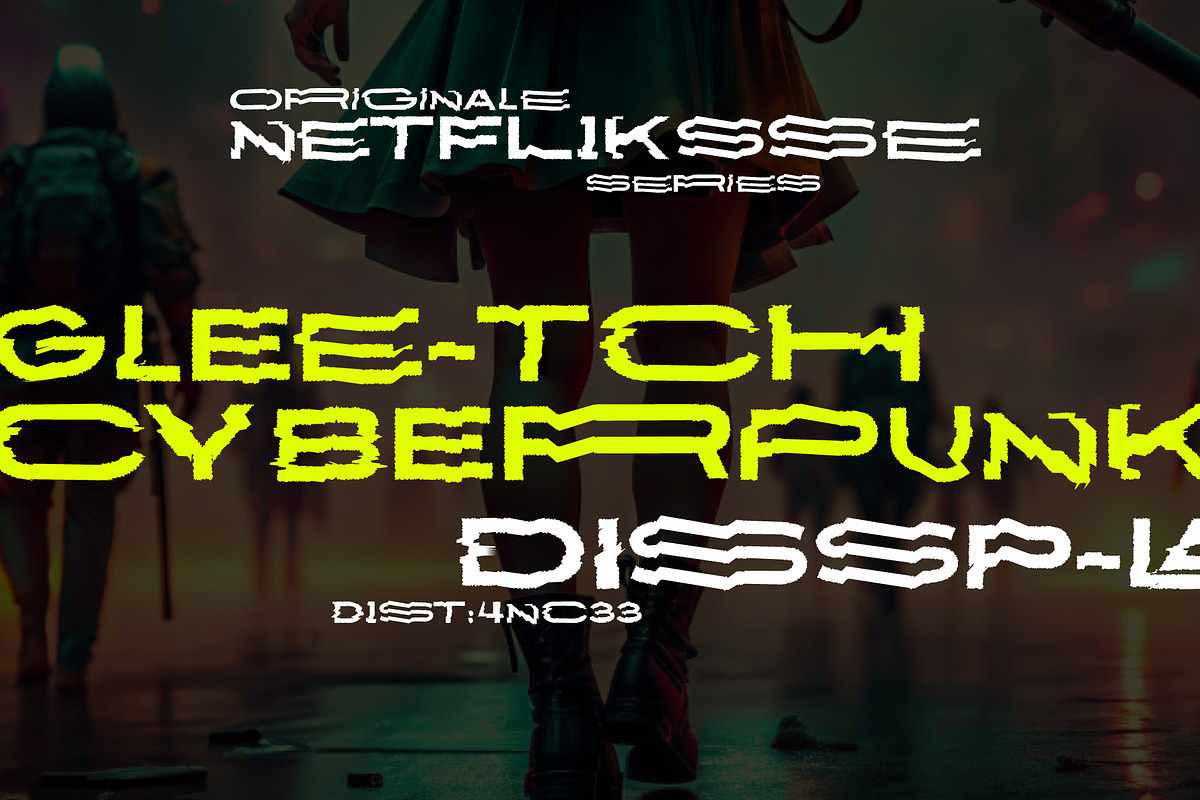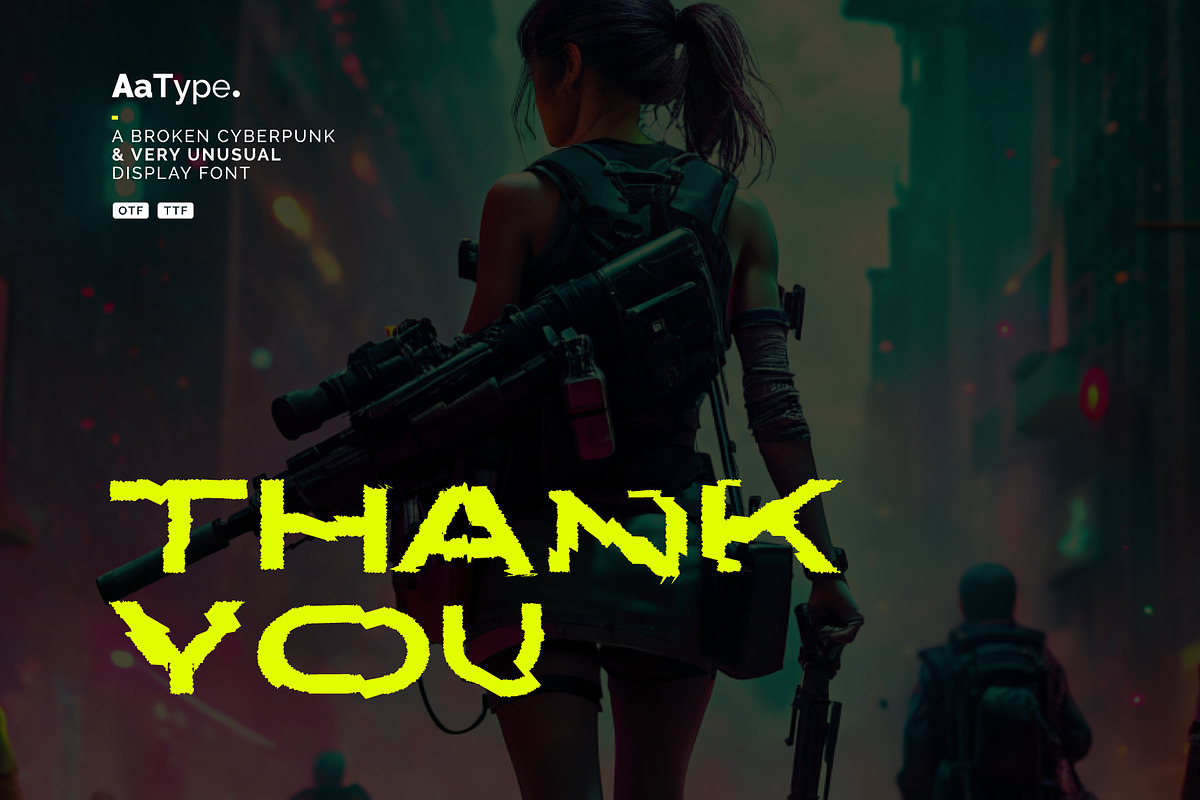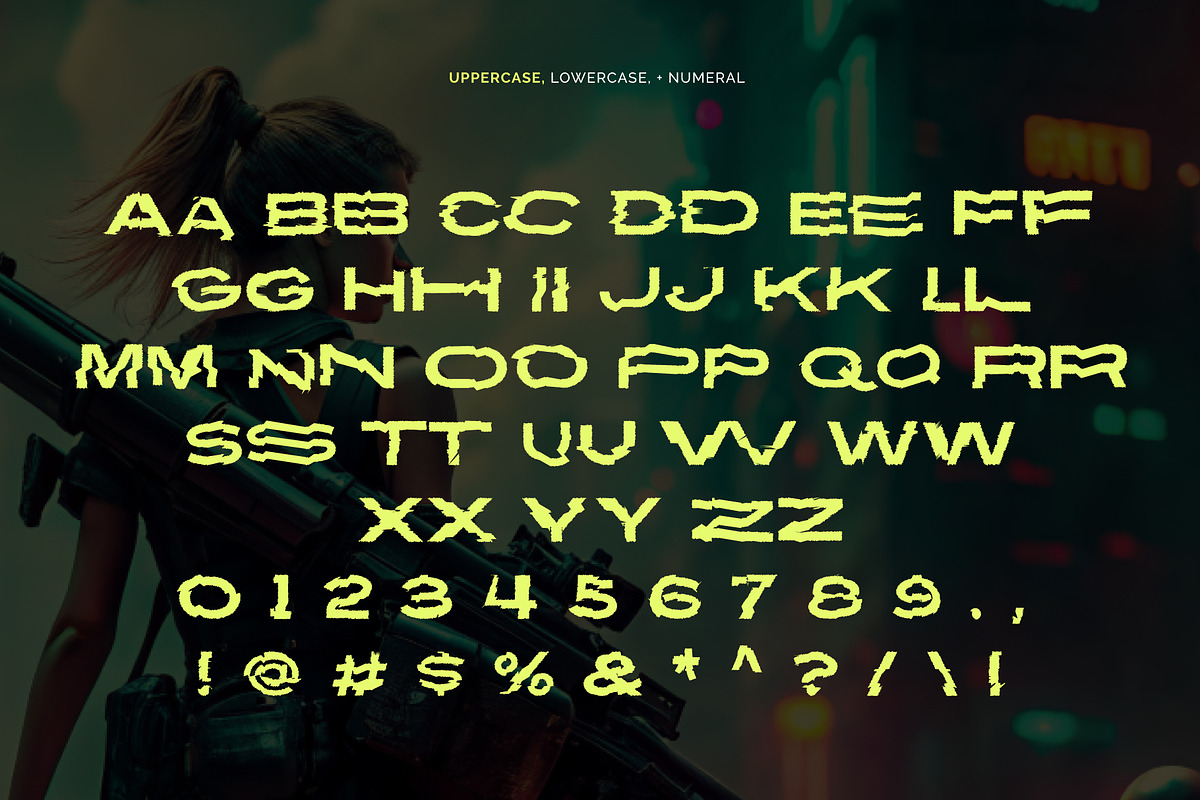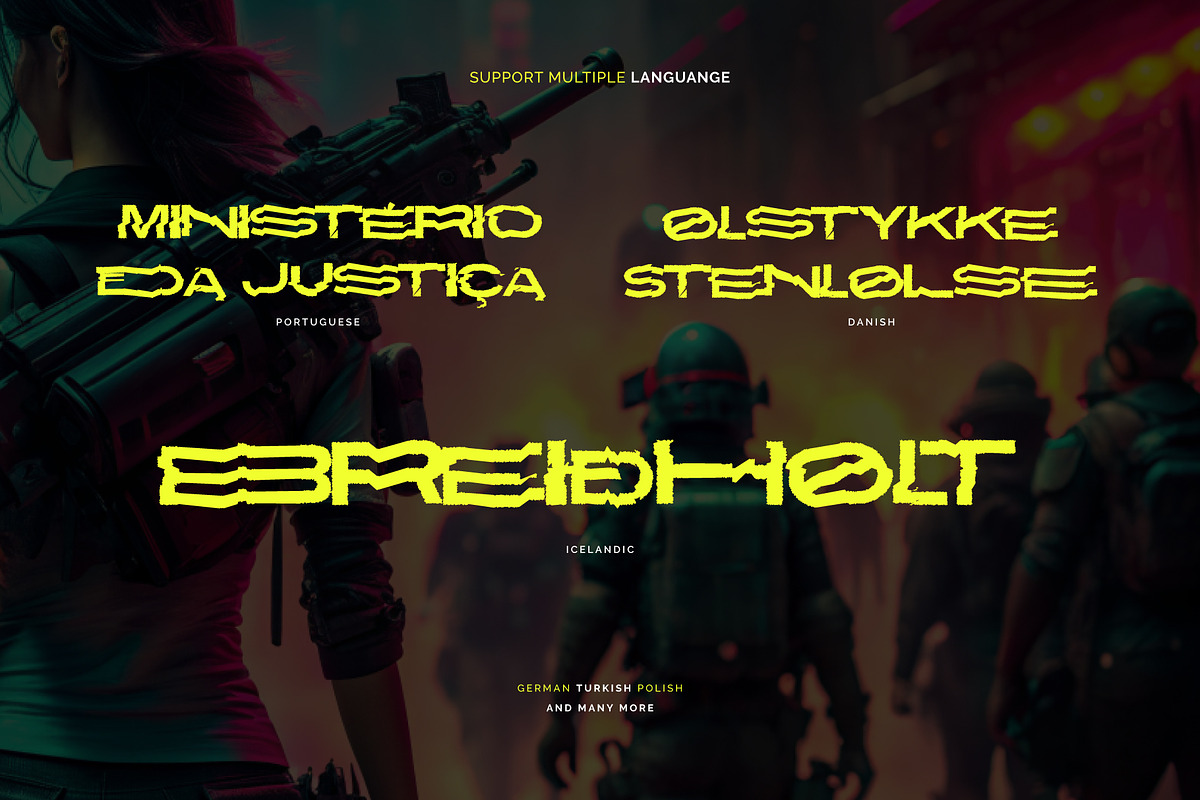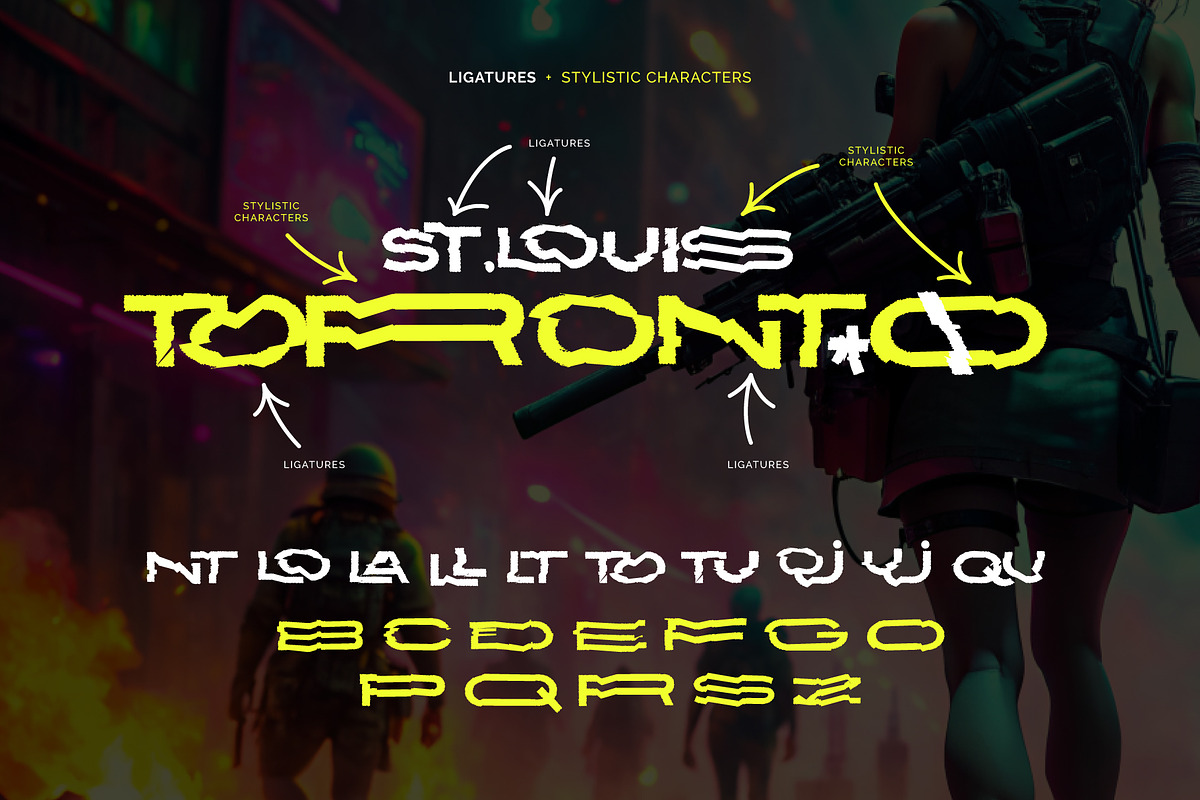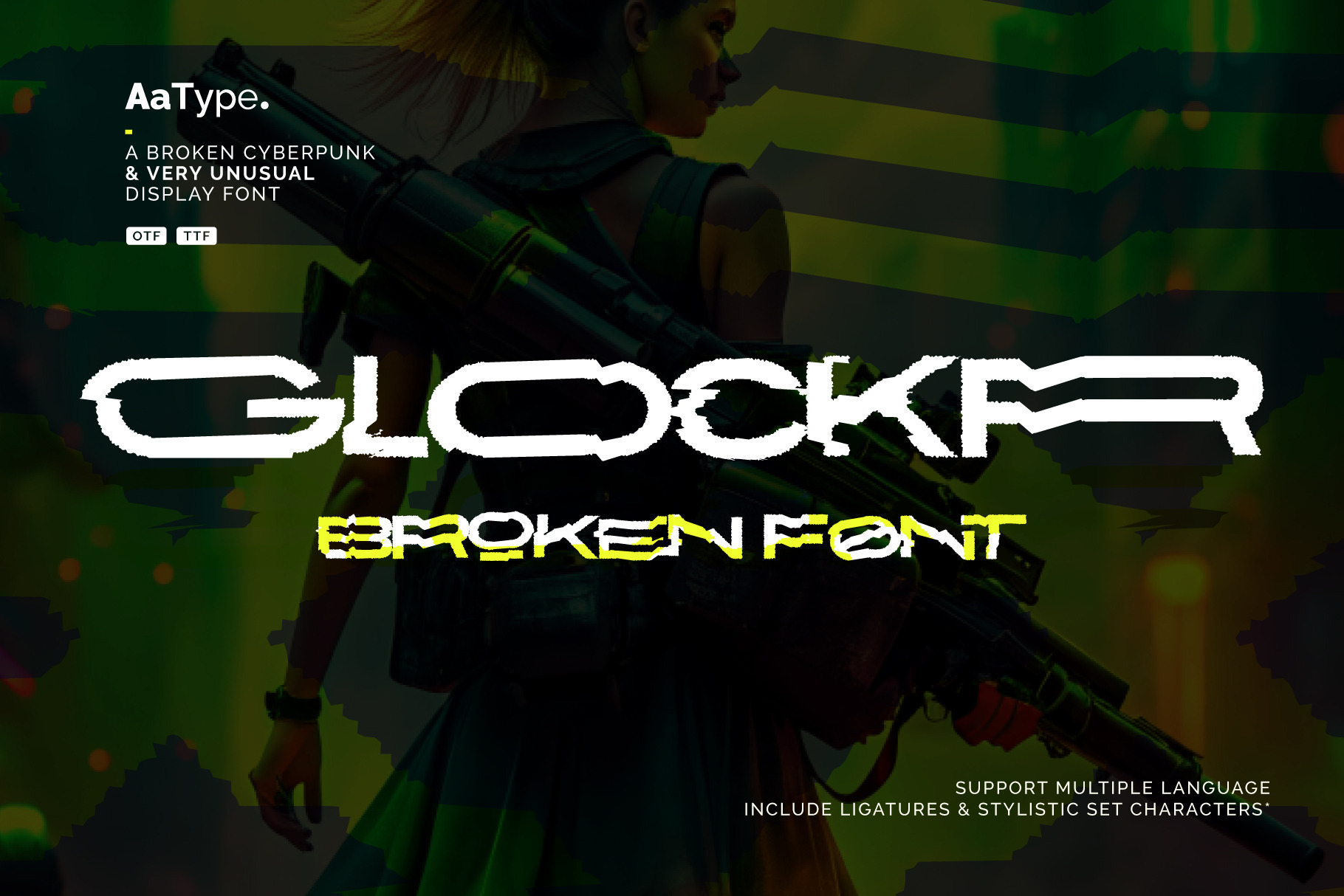
Glockr - Broken Cyberpunk Font
Glockr AA - a glitch-broken cyberpunk theme font
This extreme distorted glitch font is a BEST CYBERPUNK font for your next design project. Glockr AA is a match for your next project from movie or game title, poster, social media post, and t-shirt design.
Glockr AA comes with all Uppercase type, Numeral, Punctuation, Ligatures, and also Support Multiple Language, German, Portuguese, Danish, etc.